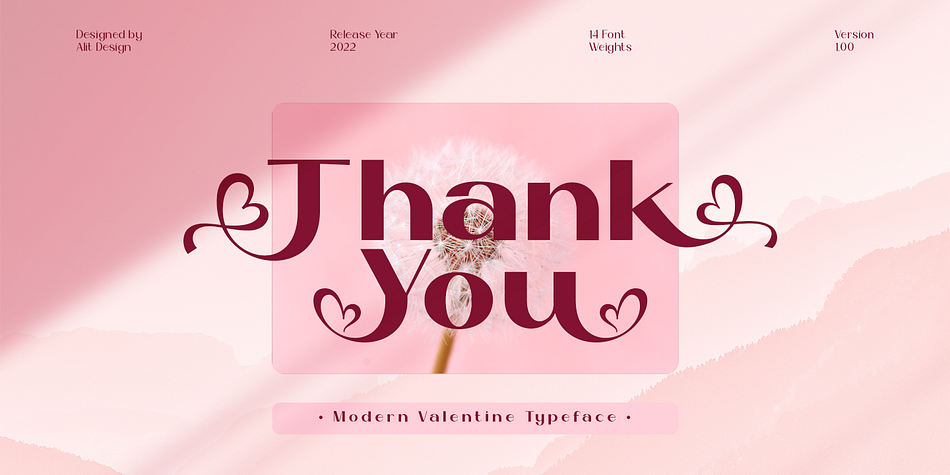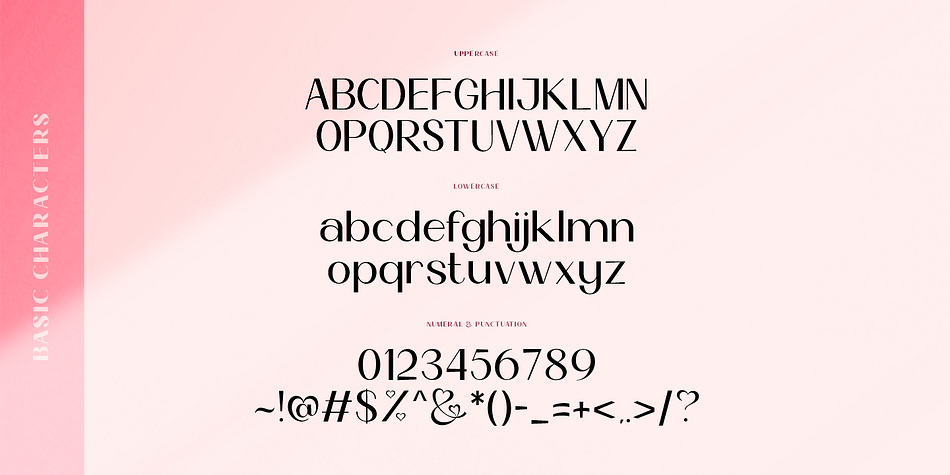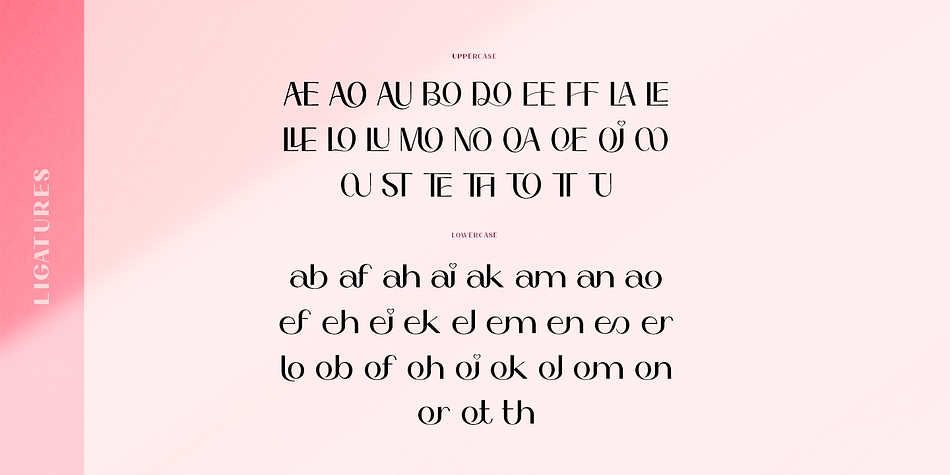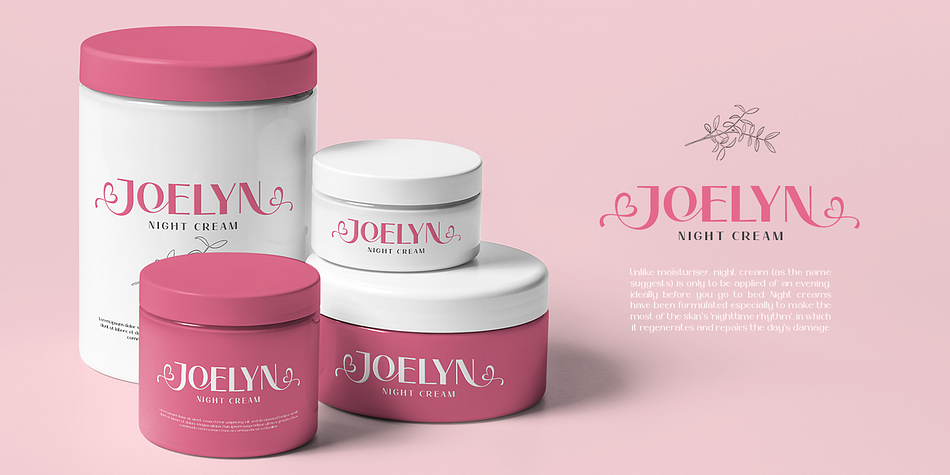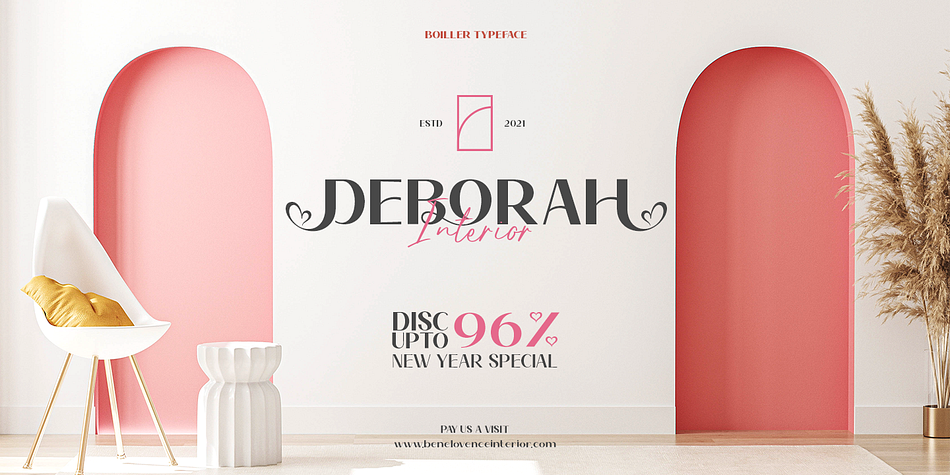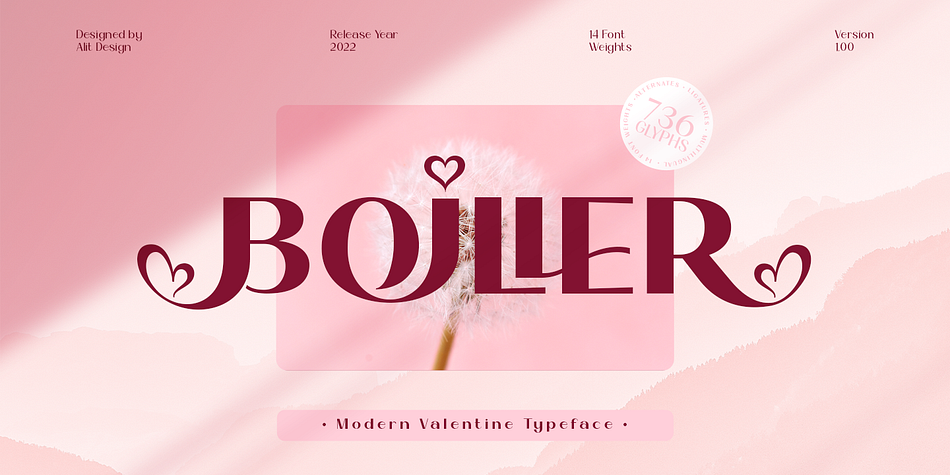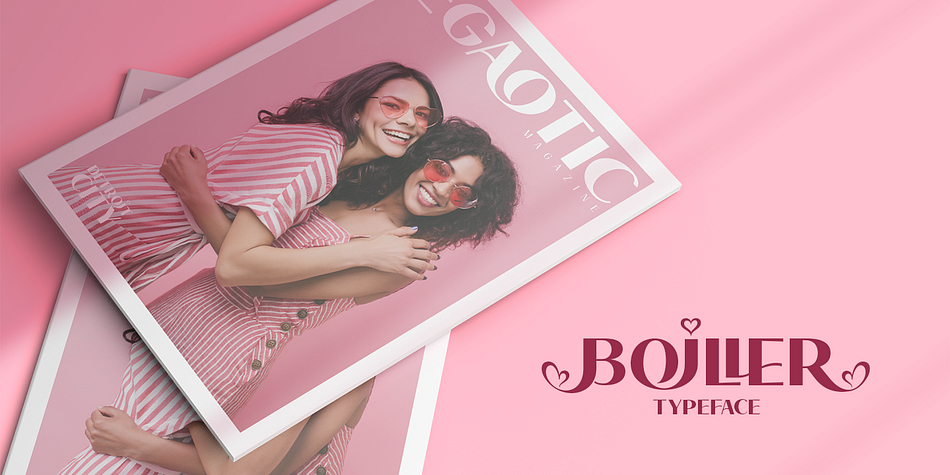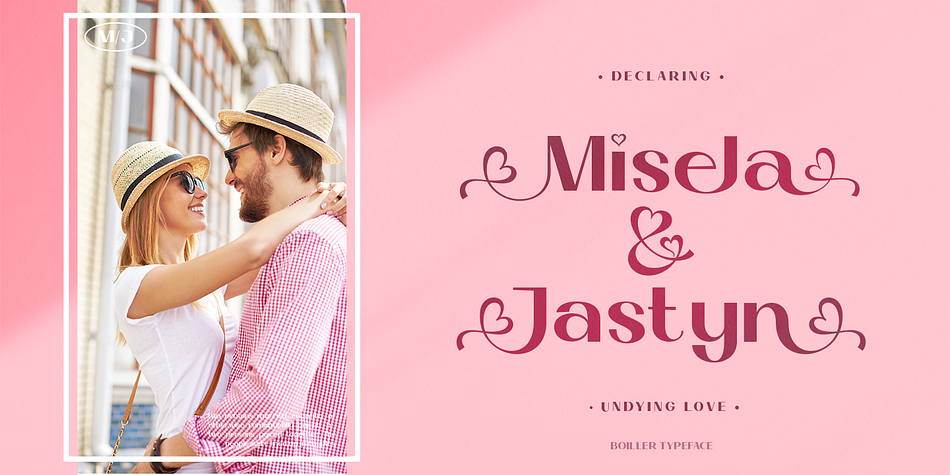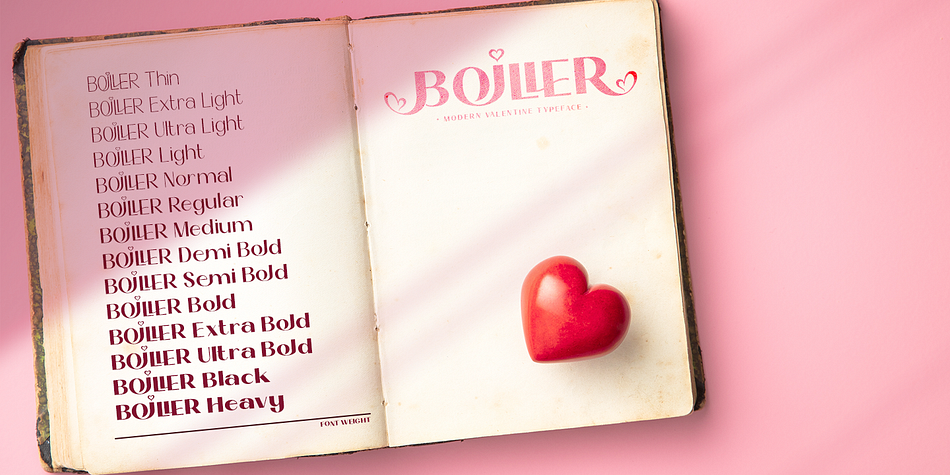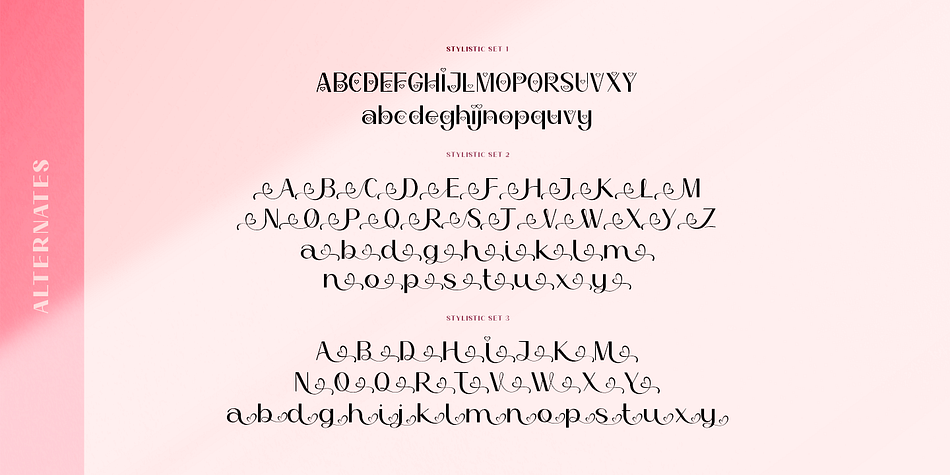
Boiller
Designed by Alit Suarnegara, Boiller is a display sans and sans serif font family. This typeface has fourteen styles and was published by Alit Design.
Introducing Boiller Typeface
????????Boiller????????is a sans serif font that has an elegant romantic concept, supported by 736 glyphs. The Boiller font has a lot of alternative characters, from swash, ligature and of course it is also supported by multilingualism. In addition, Boiller also has 14 families from Thin to Heavy. So it can be used for body text and header text.
Boiller is very suitable for design concepts that are elegant, simple, minimalist and romantic. Can be used for wedding card designs, shop signs, logotypes, promotions on Instagram and so on.